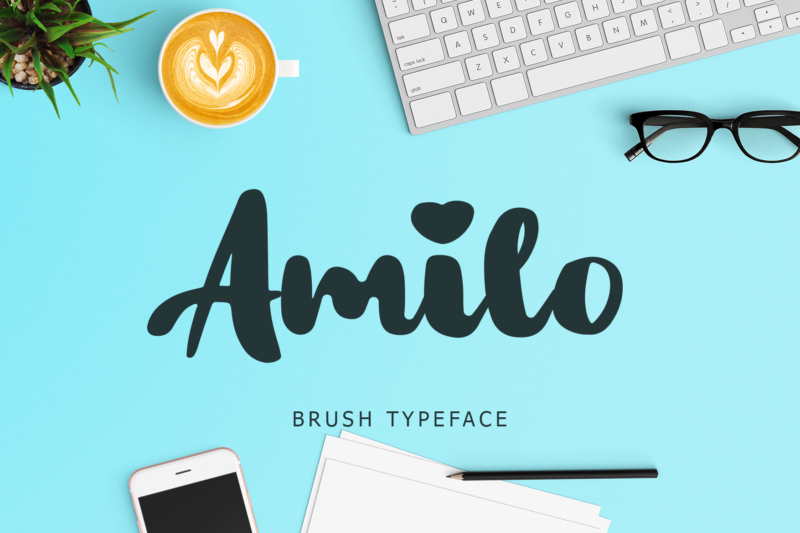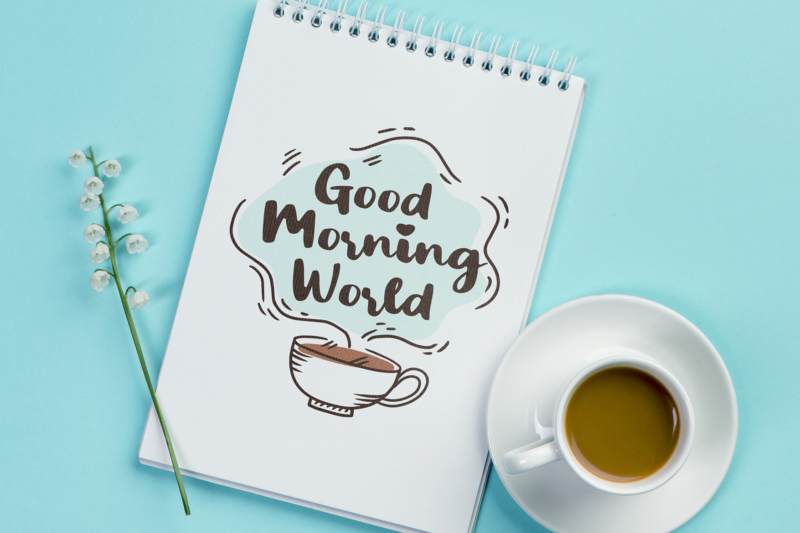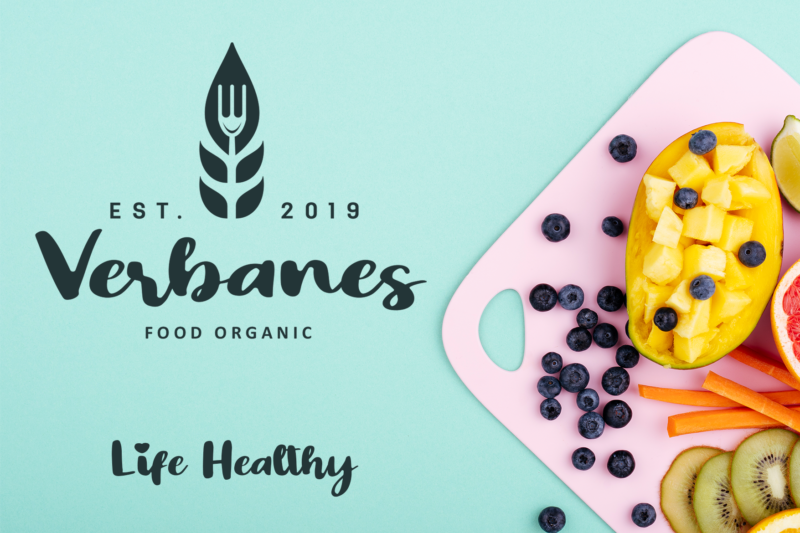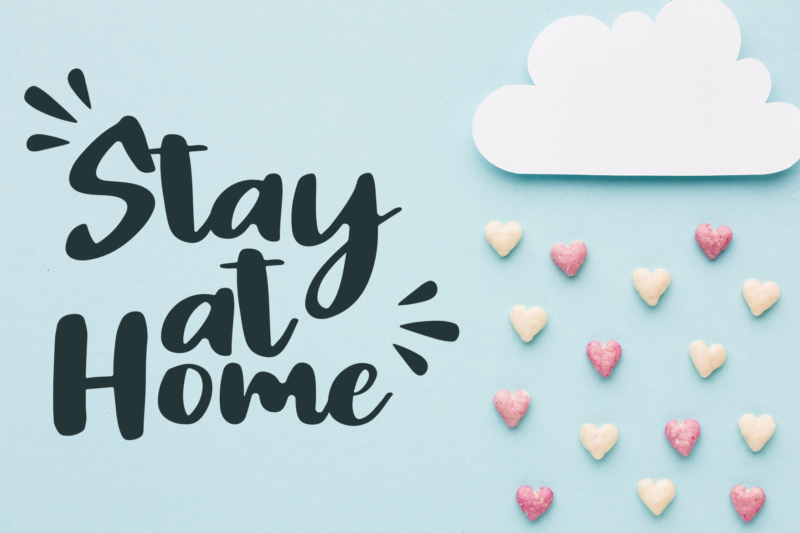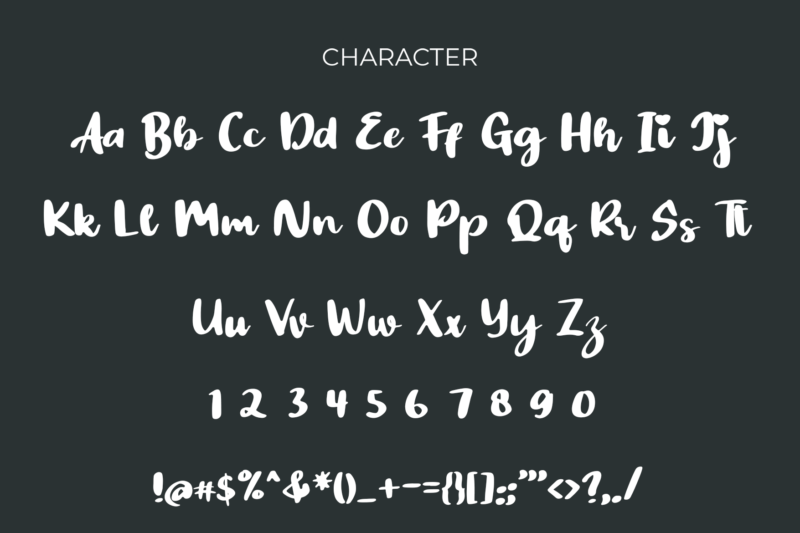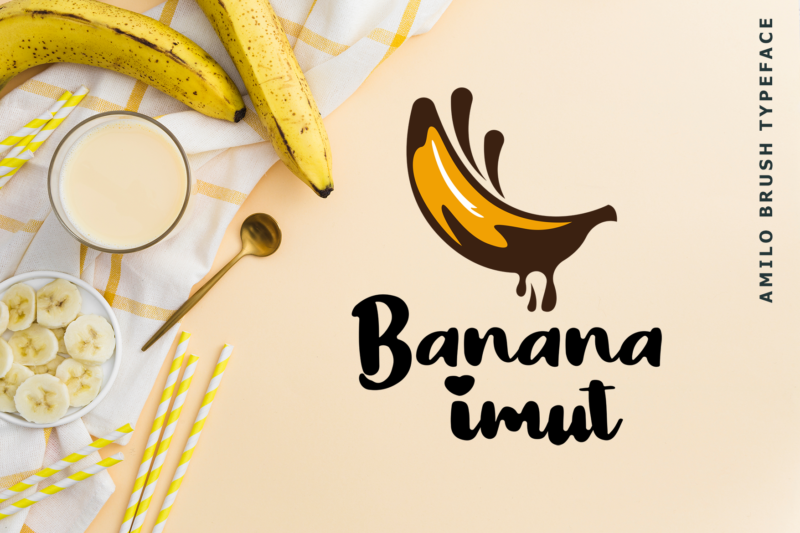
Amilo Font
Amilo is a lovely handwritten calligraphy font. It’s combining the classic style of calligraphy with a more modern style.
Amilo is perfect for branding projects, logo, wedding designs, social media posts, advertisements, product packaging, tshirt design, product designs, label, photography, watermark, invitation, stationery and any projects.